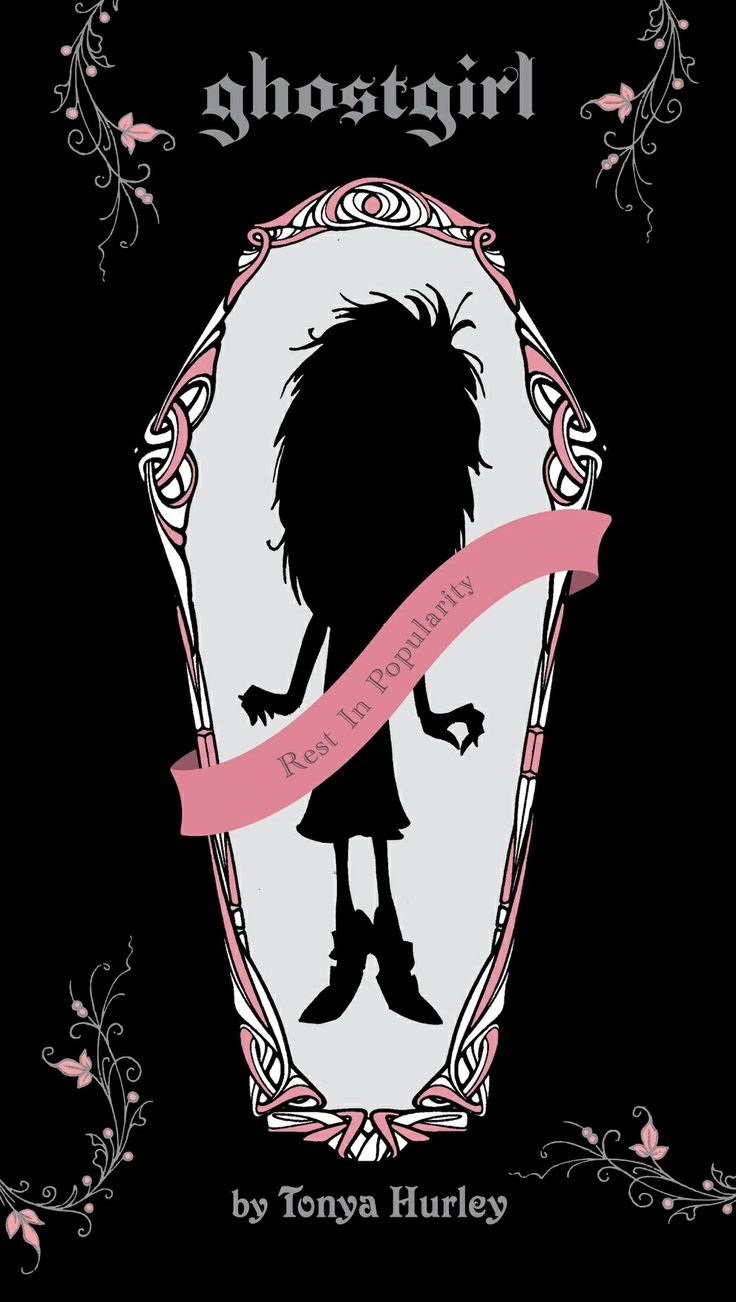
Ghostgirl (Novel) Font
BookGhostgirl is a young adult novel series written by Tonya Hurley. The series follows the story of Charlotte Usher, a high school student who is considered an outcast and is frequently bullied by her classmates. After an unfortunate accident, Charlotte becomes a ghost and must navigate her new afterlife while also trying to find a way to come back to life The book's artwork uses a girl's silhouette to represent Charlotte.
The cover image features that same girl in a coffin with the banner "Rest in Popularity," which is placed in Academy Engraved by Vince Whitlock. Baroque Text, an elaborate and exquisite blackletter face created by JAW Fonts, is the typeface used for the book title on the cover. The author's name at the bottom is written in Victorian by Freda Sack and Colin Brignall.